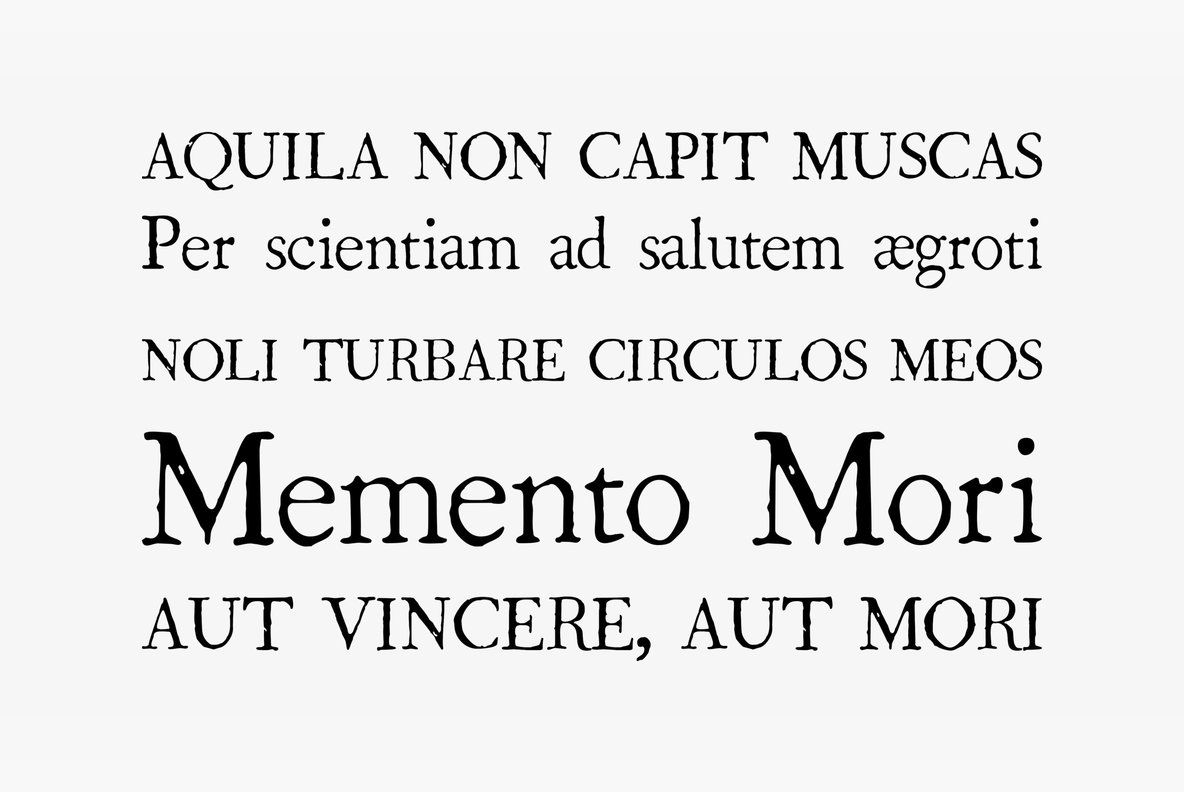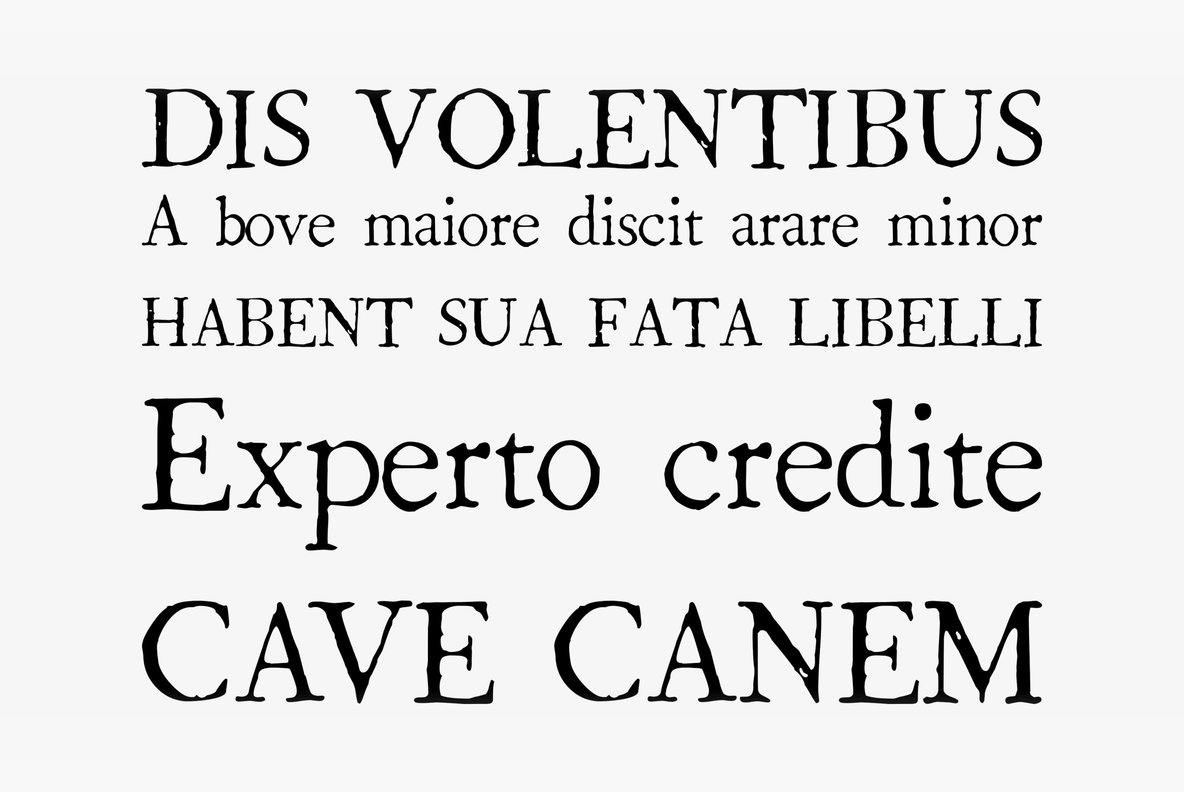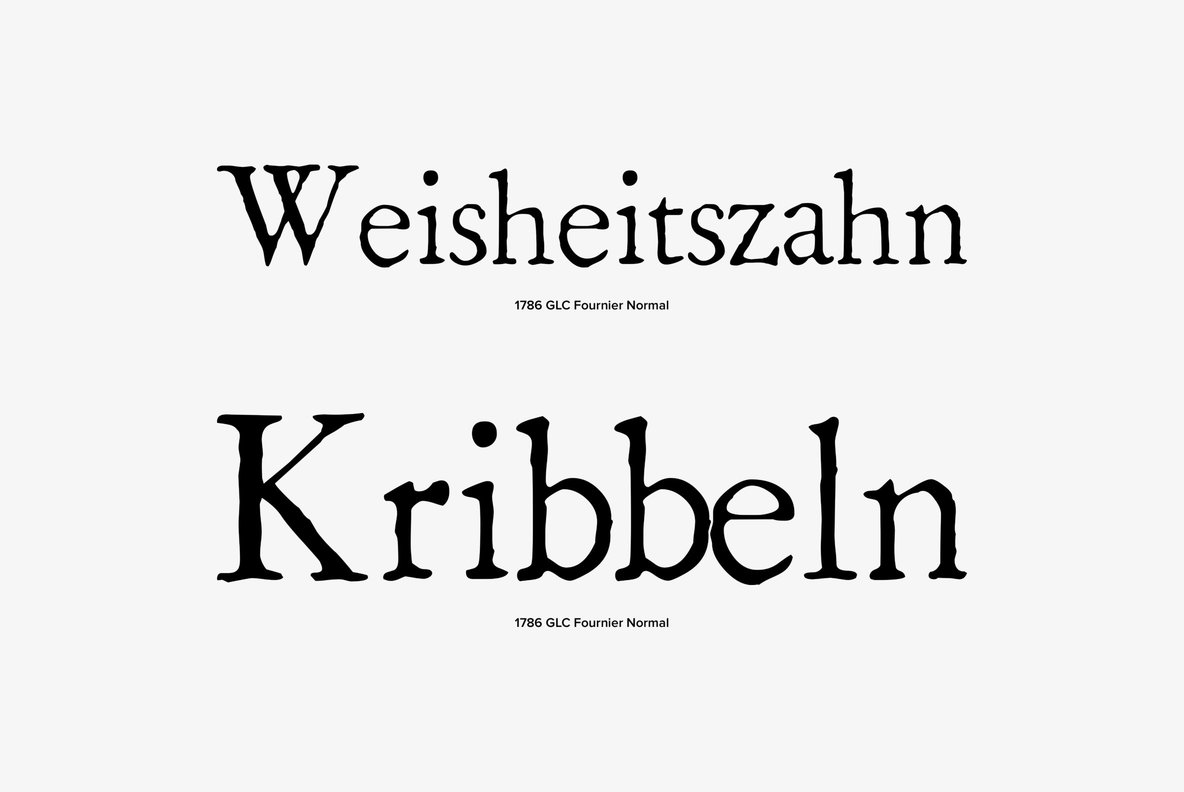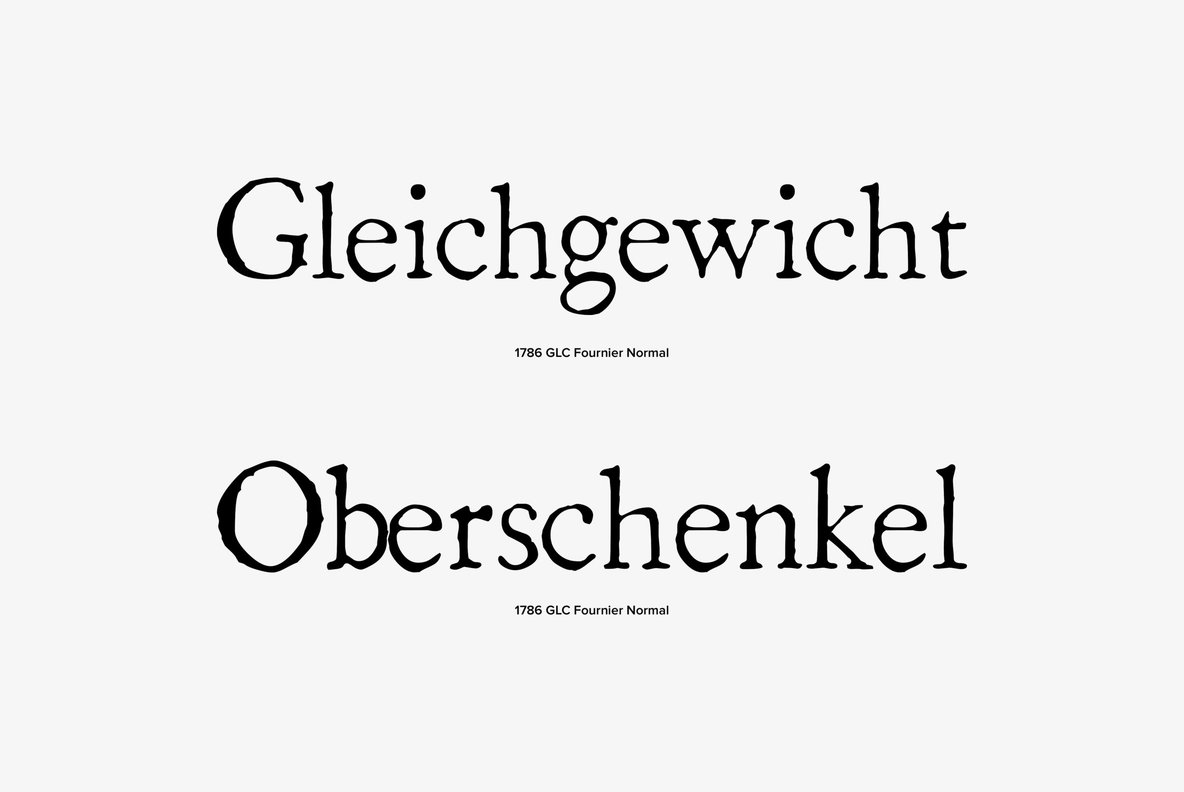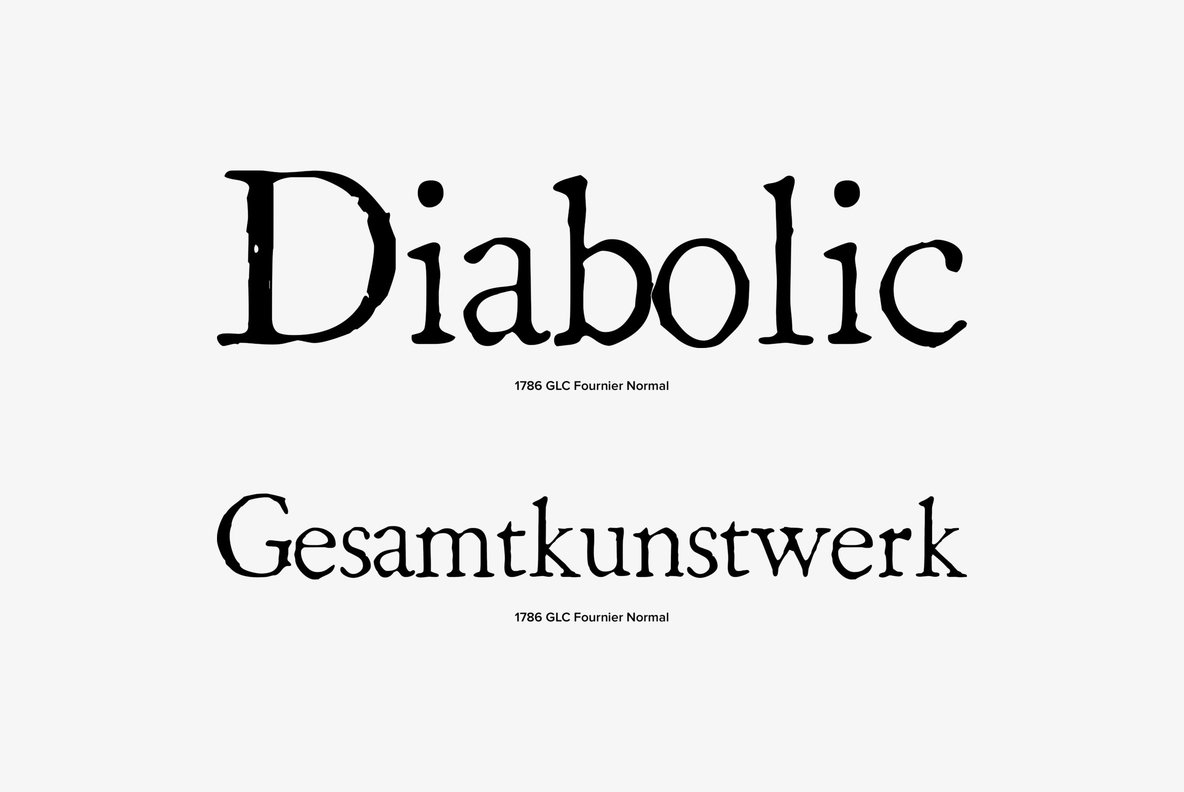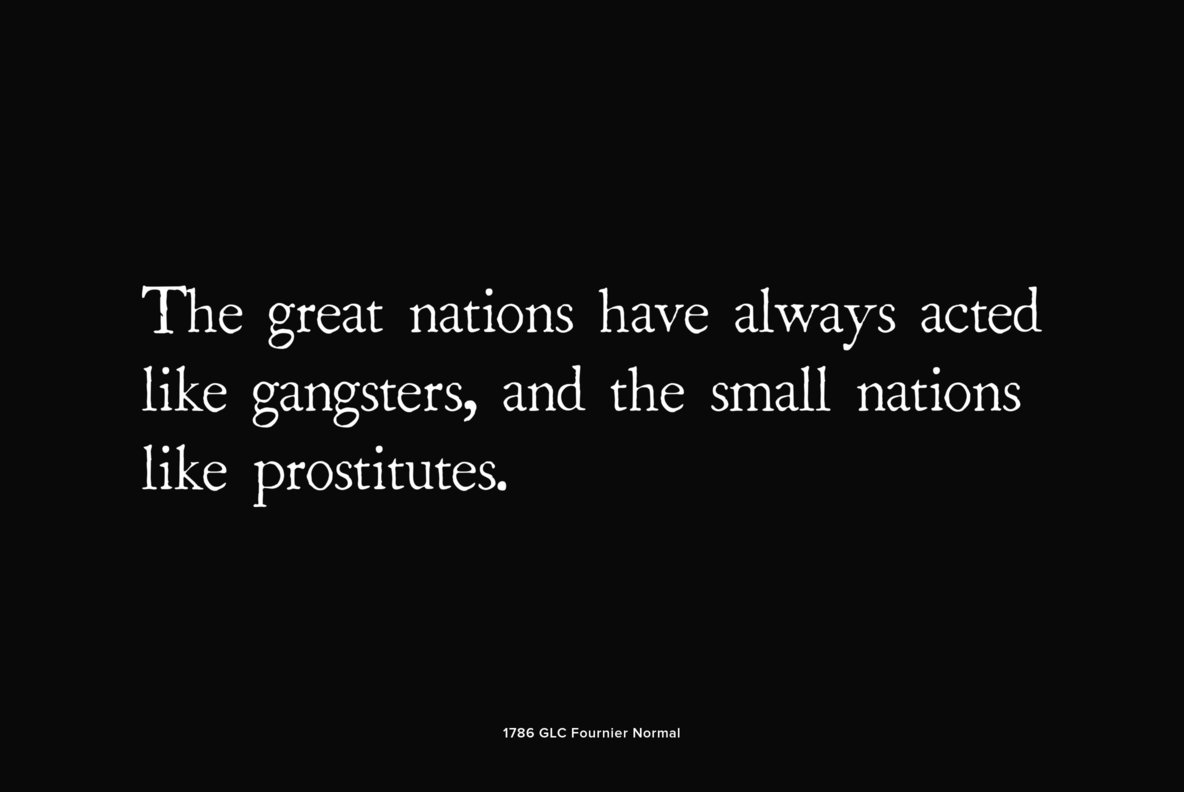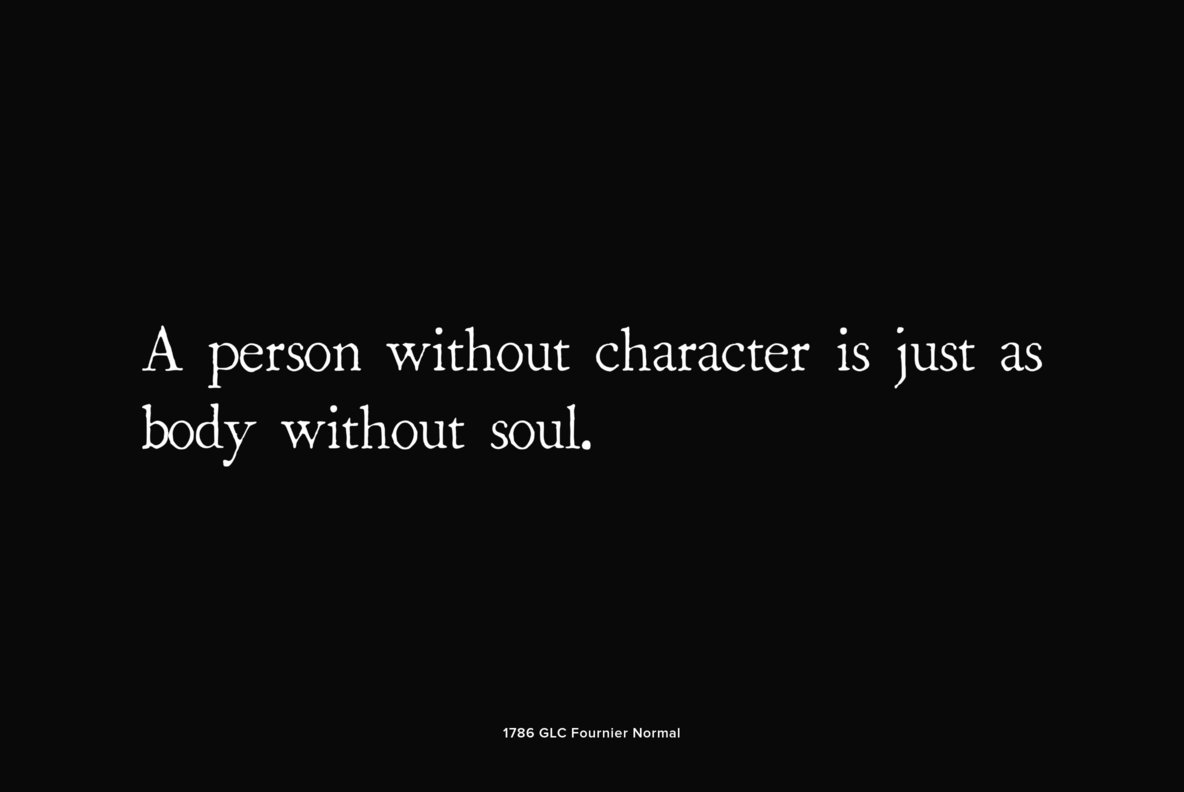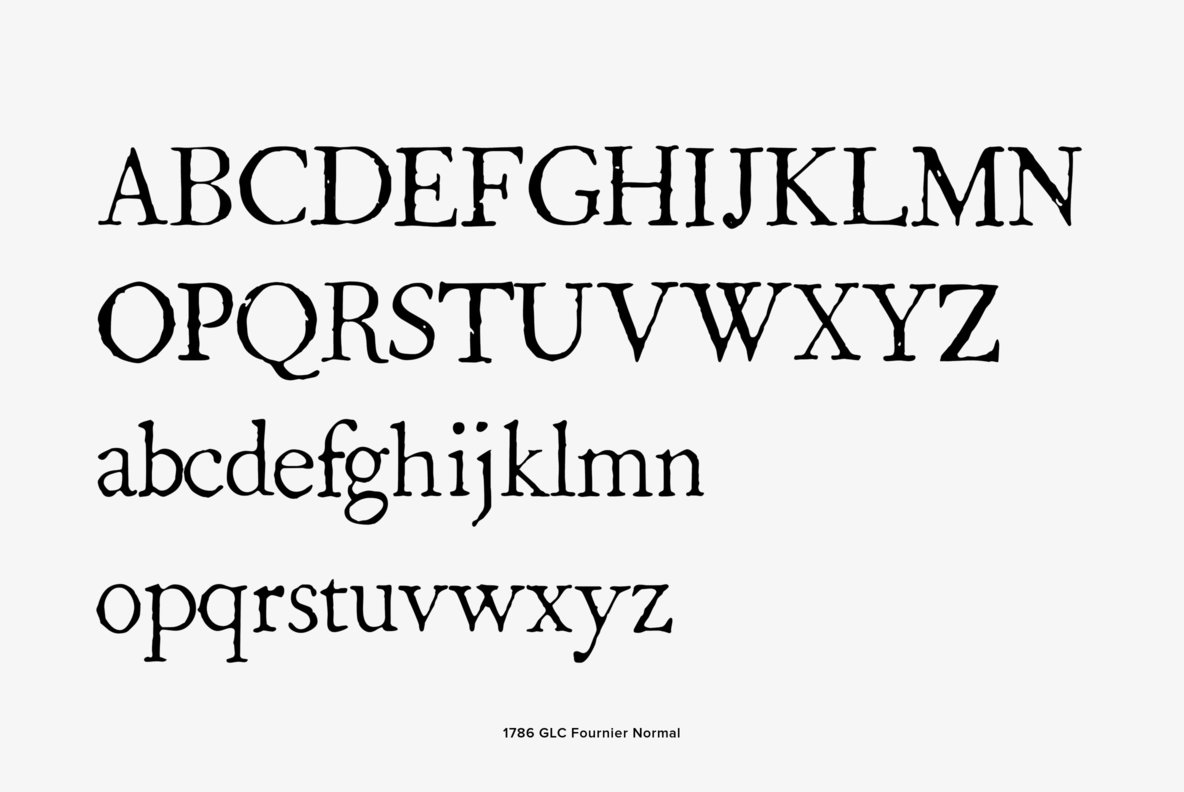
1786 GLC Fournier Font
This family was created inspired from numerous documents and books printed in Paris during the end of the 1700s. Mainly, documents printed by P.G. Simon & N.H. Nyon, "Printers of the parliament" were used for the Normal and italic styles and "Caps". "Titling" characters were coming from a collection of hymns printed by Nicolas Chapart.
In France these Fournier's characters, as Baskerville's in Great Britain, were the most often in use in the late 1700's, just before - and announcing - the Didot's.